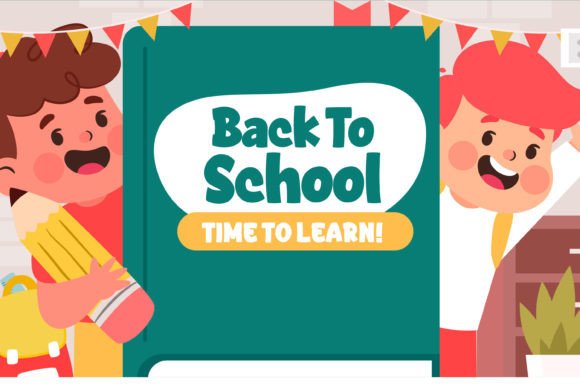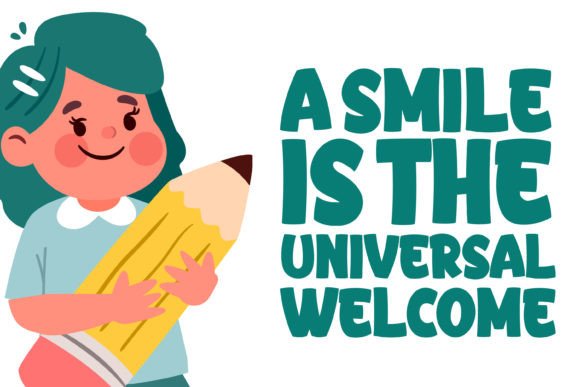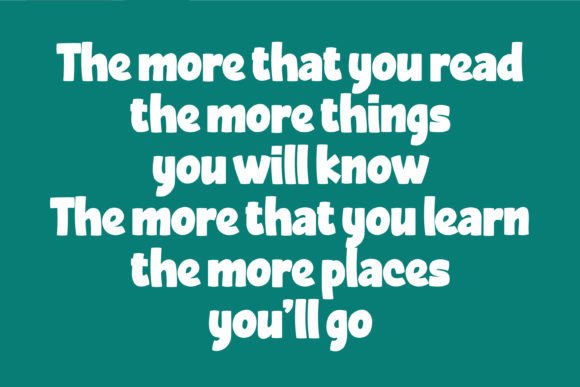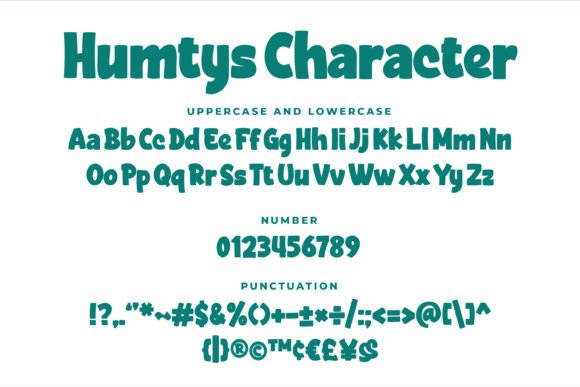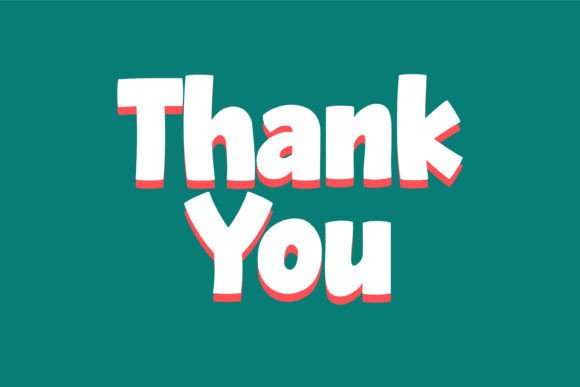
Introduction to Humtys Font
Have you ever been scrolling through social media, and suddenly a font catches your eye? It’s playful, vibrant, and instantly makes you smile. That’s exactly what happens when you come across the Humtys Font. This high-quality display font is bursting with fun and creativity, making it the perfect design resource for any creative project.
As a designer, you’re always on the lookout for the perfect font to bring your ideas to life. With Humtys Font, you’ll find a reliable companion that’s sure to add a cheerful touch to your designs. Whether you’re working on a poster, children’s product, or social media graphic, this font is a great choice. And the best part? It’s available for free download with a transparent background, making it easy to integrate into your design.
Let’s dive into the world of Humtys Font and explore what makes it so special. From its bubbly shapes to its lively personality, we’ll uncover the secrets behind this popular design resource.
Key Features of Humtys Font
- High-quality typography with a unique and creative style, perfect for any design project.
- Transparent background, making it easy to place over any image or background.
- Unique characteristics, such as its playful and whimsical feel, make it a standout design element for any creative project.
- Designed to be highly legible and readable, even at small font sizes, making it perfect for use in a variety of design contexts.
Honest Review: Humtys Font
I recently stumbled upon the Humtys Font, and I’m excited to share my thoughts on this design resource. As a designer, I’m always on the lookout for high-quality fonts that can elevate my creative projects. The Humtys Font did not disappoint!
- Unique and creative design: The Humtys Font has a distinctive style that sets it apart from other fonts. Its quirky feel makes it perfect for projects that need a bit of personality.
- Transparent background: This feature makes it easy to layer the font over different backgrounds, giving me more flexibility in my designs.
While the Humtys Font is a great addition to my design library, I did encounter a few limitations. The font may not be suitable for projects that require a more professional or formal tone, as its playful style may not be taken seriously.
Overall, I’m impressed with the Humtys Font. Its unique design and transparent background make it an excellent resource for designers working on creative projects. While it may not be suitable for all projects, I appreciate its free download option and would definitely recommend it to fellow designers looking for a high-quality, design resource.
Tips for Getting the Most Out of Humtys Font
Humtys Font is commonly used in various design projects, including social media graphics, presentations, posters, and brochures. Its unique and creative design makes it a popular choice among designers who want to add a personal touch to their work.